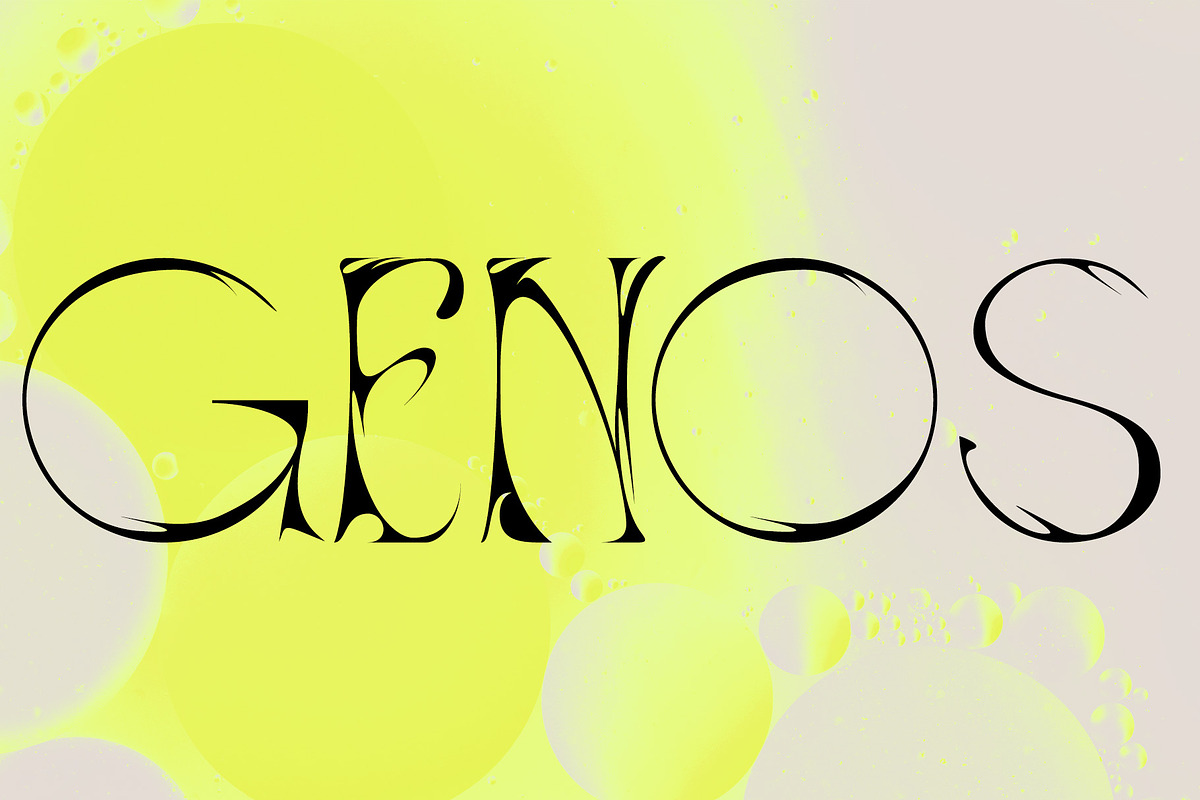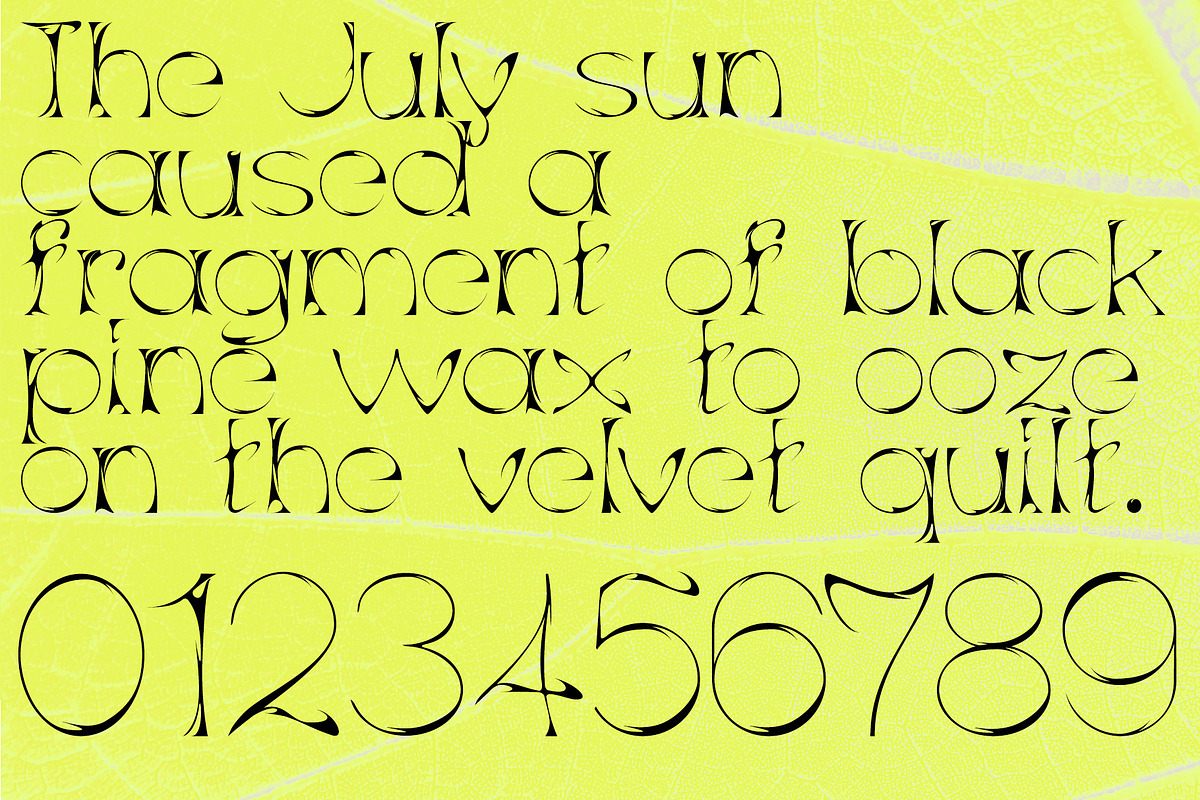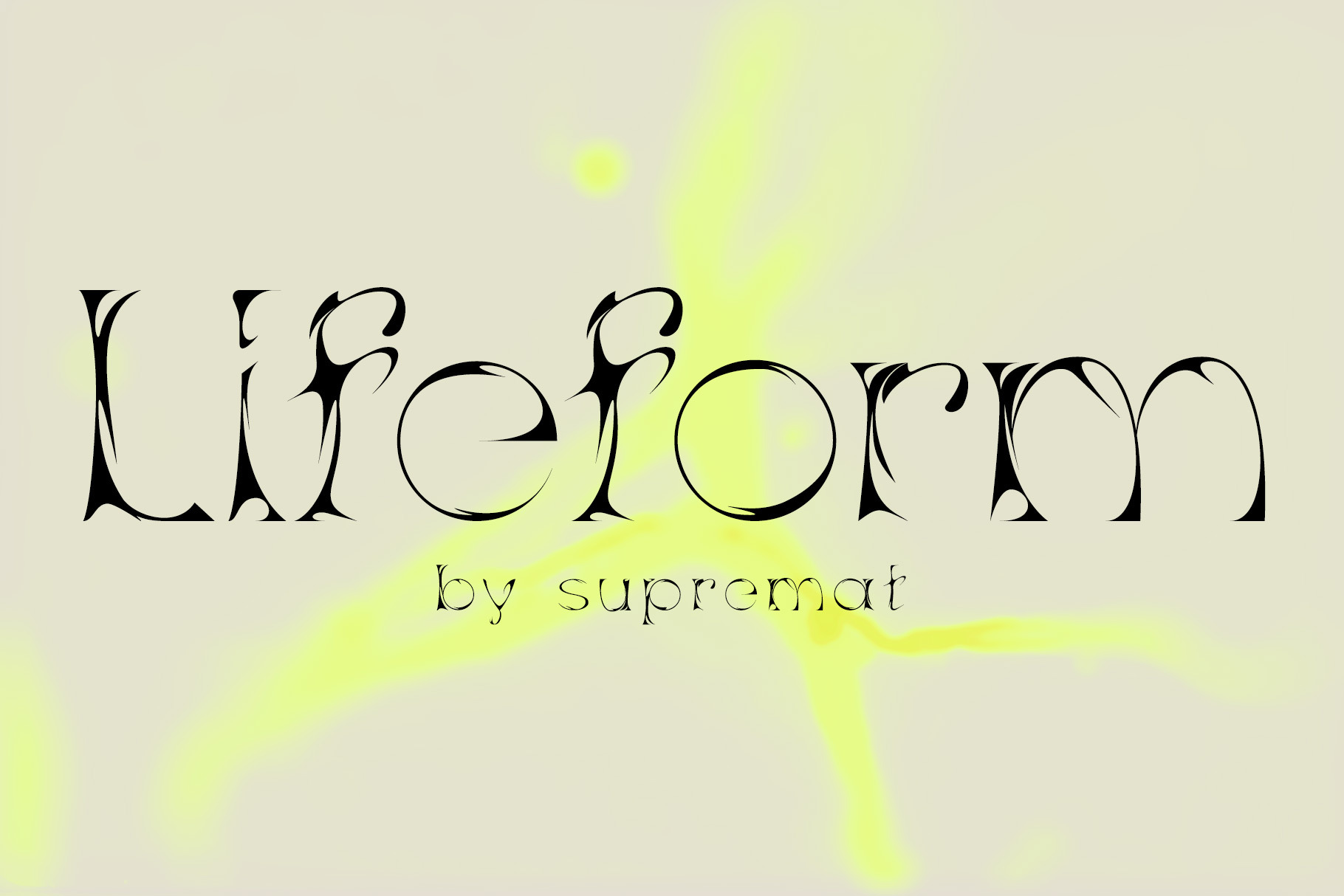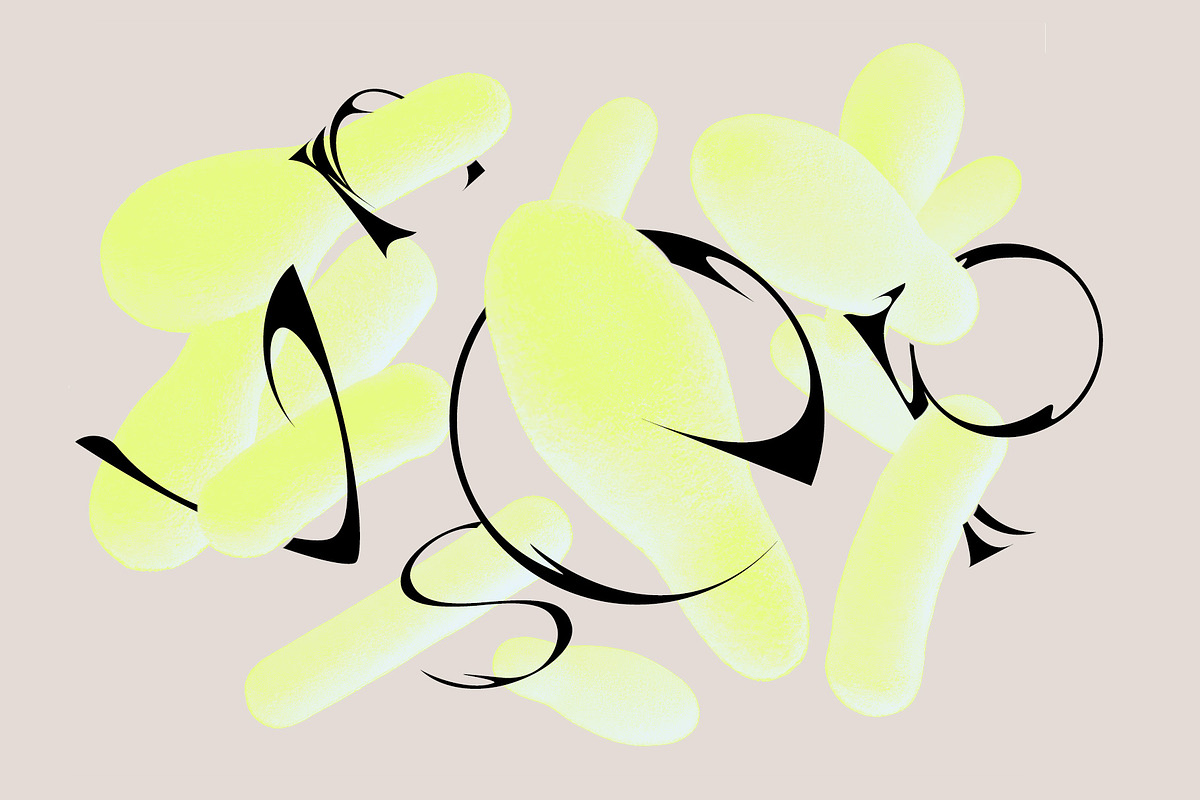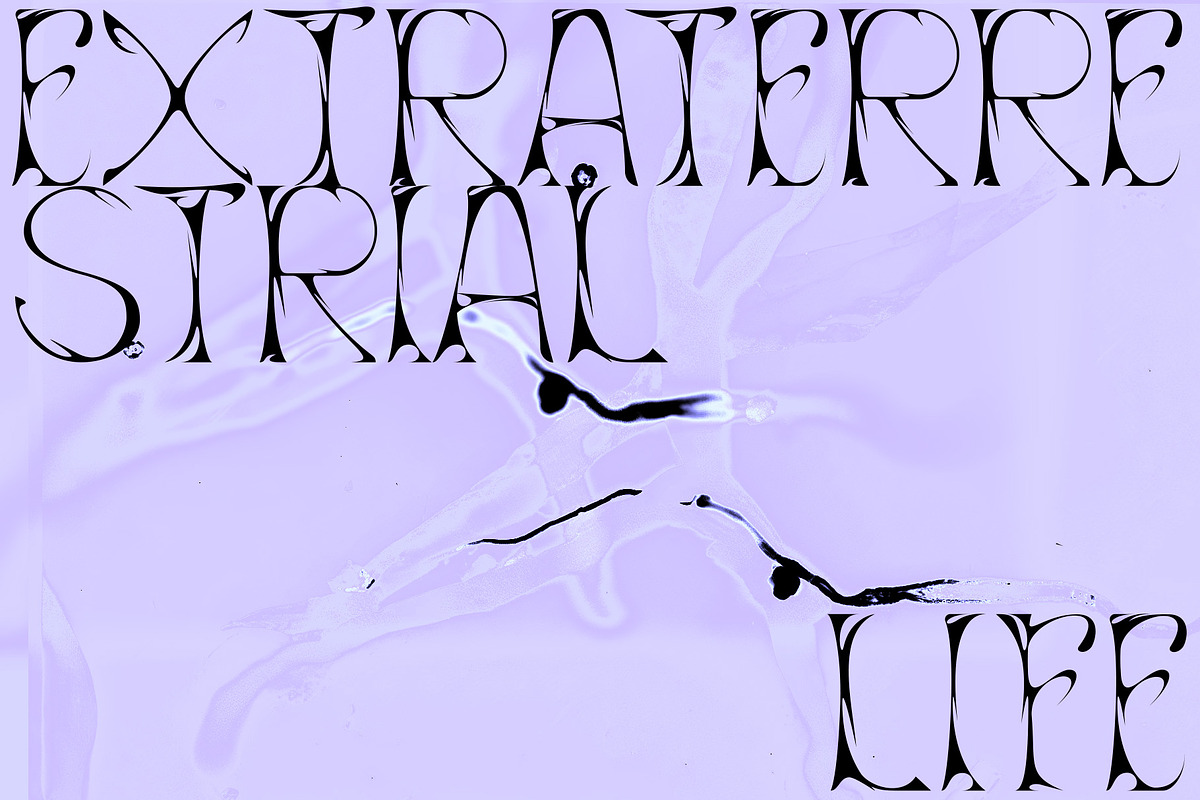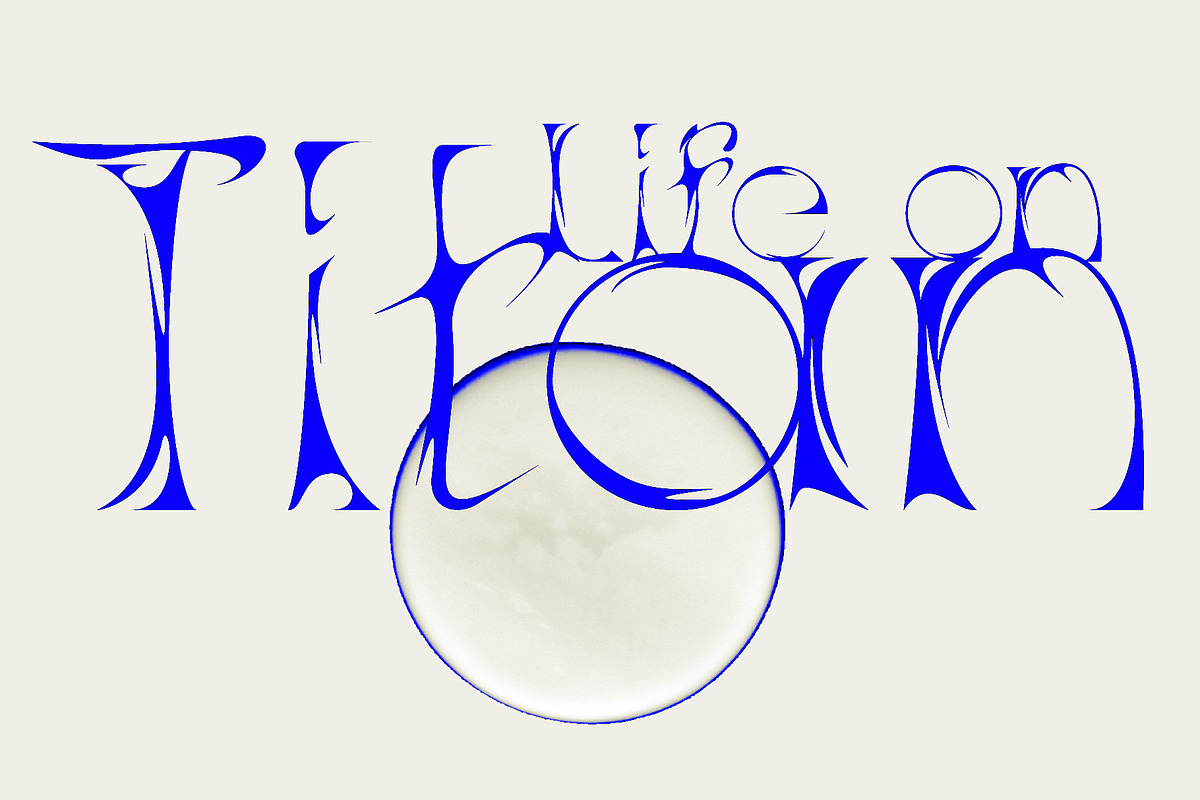
Lifeform Typeface
Lifeform is a modern display font created as a result of my experiments on the forms of letters. While working on the font, I had ambivalent feelings, on the one hand I liked the individual curved lines, on the other hand they seemed very strange, alien and illogical. It was like looking into a microscope and seeing something strange. I wanted to develop and study these forms as something new, because I had never seen anything similar before. The result is a contrasting font that has both curves and sharp, and smooth lines that resemble some kind of organic matter.
The font is well suited for large headlines, posters and covers. Its strange design catches the eye and will not leave the viewer indifferent.